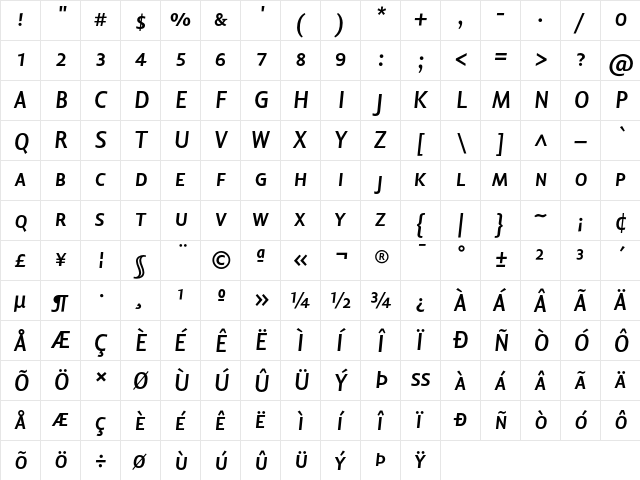
Lisboa Sans SC Bold Italic
Design Context for Lisboa Sans SC Typeface
Lisboa Sans SC is a composed and adaptable typeface that performs quietly and consistently across a wide range of design contexts. The dynamic lean of this cut emphasises speed and emphasis in any layout. Its bold stroke weight gives it real presence on the page.
Pro Tip: Try Lisboa Sans SC for annotation and caption copy alongside an upright companion — the contrast in angle creates a dynamic but ordered typographic system.